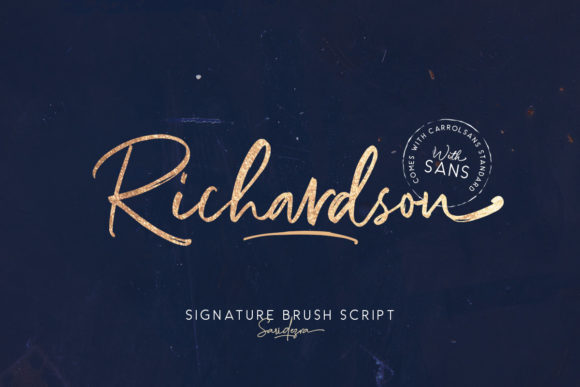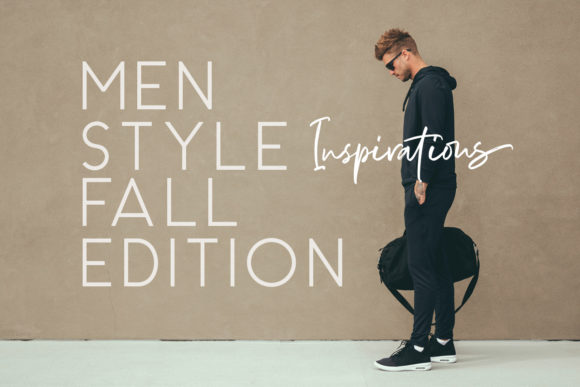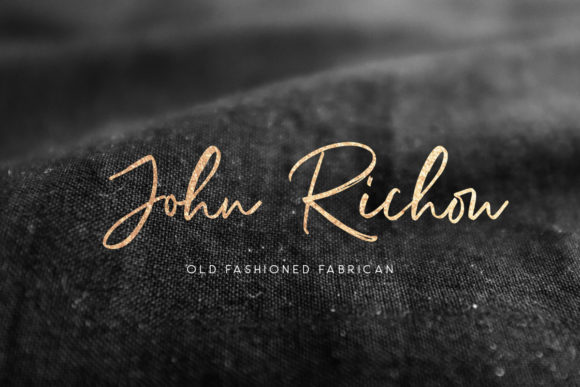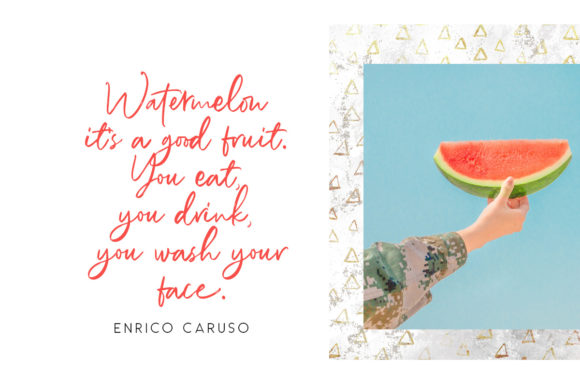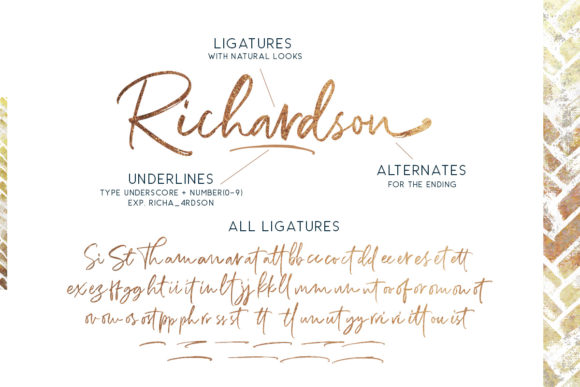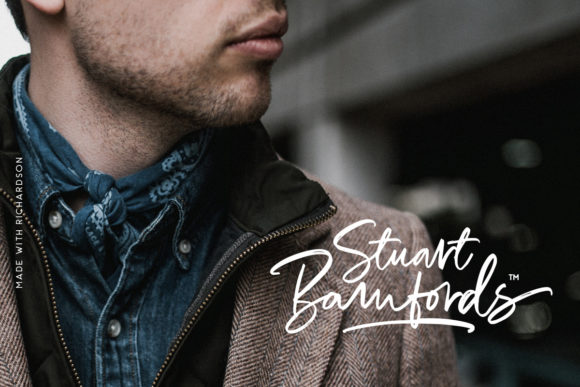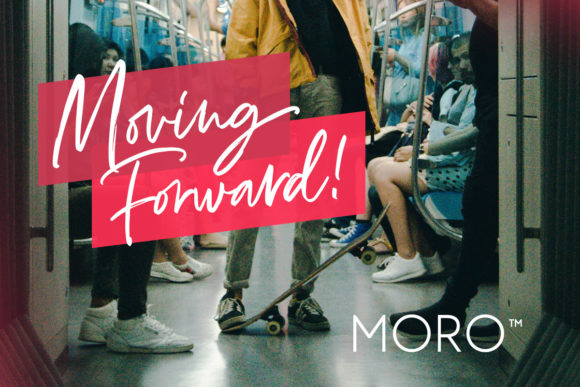
Richardson Font
About Richardson Font
The Richardson is a stylish signature brush script. It has an unique, striking look which can be used to make any design stand out.
It’s perfect for logos, fashion designs, wedding stationary, quotes, and much more!